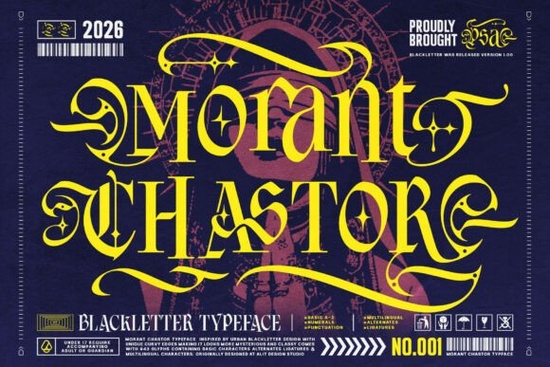
If you're looking for a bold, dramatic font that stands out in any design whether it’s for apparel, gaming, or social media Morant Chastor Font delivers a unique blend of dark elegance and modern edge. This blackletter typeface draws inspiration from historical cathedral scripts but reimagines them with sharp, calligraphic swashes and psychedelic curves that feel right at home on a skate deck or in a fantasy game logo.
What makes Morant Chastor different from other blackletter fonts?
While many blackletter fonts stick to traditional structures, Morant Chastor adds a fresh twist. The letterforms are heavy and commanding, with sweeping lines that create movement across the page. What really sets it apart are the custom details: diamond-star punctuation marks built directly into the counters (the open spaces inside letters like "o" or "a"). These aren’t just decorative they add visual interest and help your text pop without needing extra graphics.
The font works especially well when paired with dark backgrounds, metallic textures, or gritty urban imagery. It’s not just about looks it’s about mood. If you’re designing something for a gothic-inspired brand, an indie brewery label, or a limited-edition print-on-demand t-shirt, this font helps set the tone instantly.
Where can you use Morant Chastor effectively?
- Apparel & merchandise: Perfect for alternative fashion lines, streetwear brands, or custom patches where bold typography matters.
- Gaming & fantasy: Ideal for titles, character names, or lore pages in dark fantasy games or RPGs.
- Artisanal branding: Great for craft breweries, distilleries, or small-batch product labels that want a distinctive voice.
- Social media visuals: Use it for impactful quote cards, event posters, or story highlights that need immediate attention.
It’s also worth noting that Morant Chastor is designed for display use only not for long blocks of body text. That said, when used correctly, it becomes the star of any layout.
How does it fit into modern design trends?
There’s a growing appreciation for fonts that bridge old-world craftsmanship with contemporary culture. Morant Chastor sits at that intersection taking the formality of medieval script and remixing it with the energy of street art and digital tech wear. You’ll see its influence in everything from underground music visuals to indie film title sequences.
If you’ve explored fonts like traditional blackletter styles, you might find Morant Chastor more dynamic and less rigid. It feels alive, almost like it’s moving through the design space. The contrast between thick strokes and delicate swashes gives it rhythm and depth.
Why designers love this font
One of the biggest wins? It’s versatile within its niche. Whether you're creating a single poster or building a full brand identity, Morant Chastor holds up under close inspection. The kerning is carefully adjusted, and the glyphs respond well to scaling no pixelation or distortion even at larger sizes.
Want to see how it looks in action? Visit Morant Chastor Font to browse examples, download a preview, and see real-world applications from other users.
Final tip: Use it strategically
Don’t overwhelm your design. Let Morant Chastor shine by pairing it with simple, clean elements like solid colors, minimal icons, or plain backgrounds. The font itself carries the weight, so keep the rest of the layout understated.
Before finalizing your project, test it at different sizes and on various devices. Make sure the diamond-star punctuation and swashes remain clear and legible. A little refinement goes a long way.